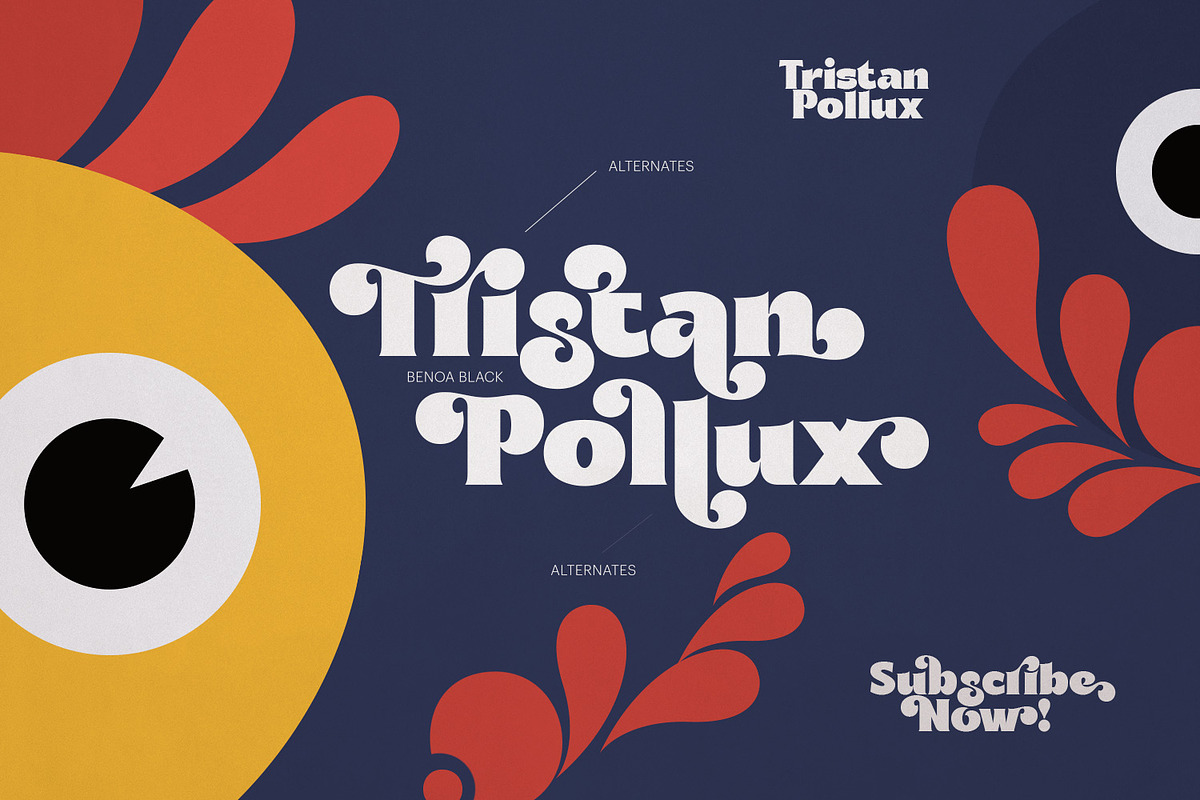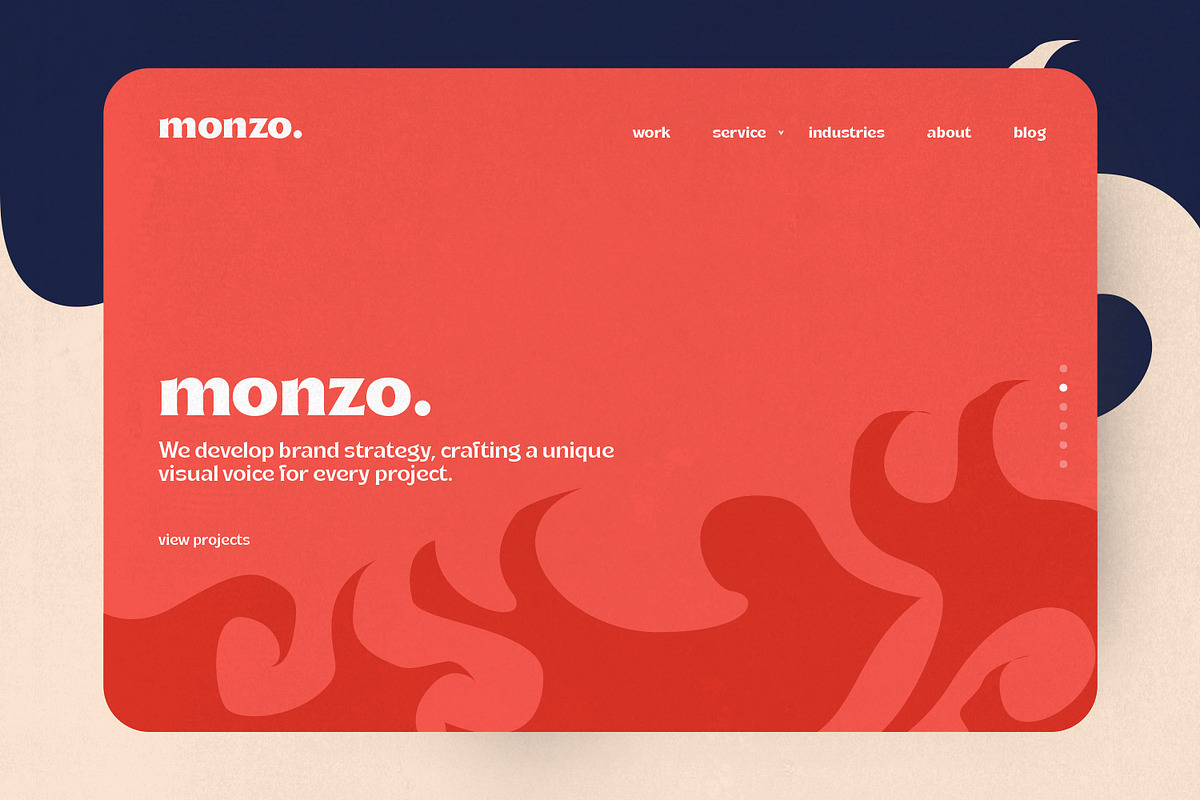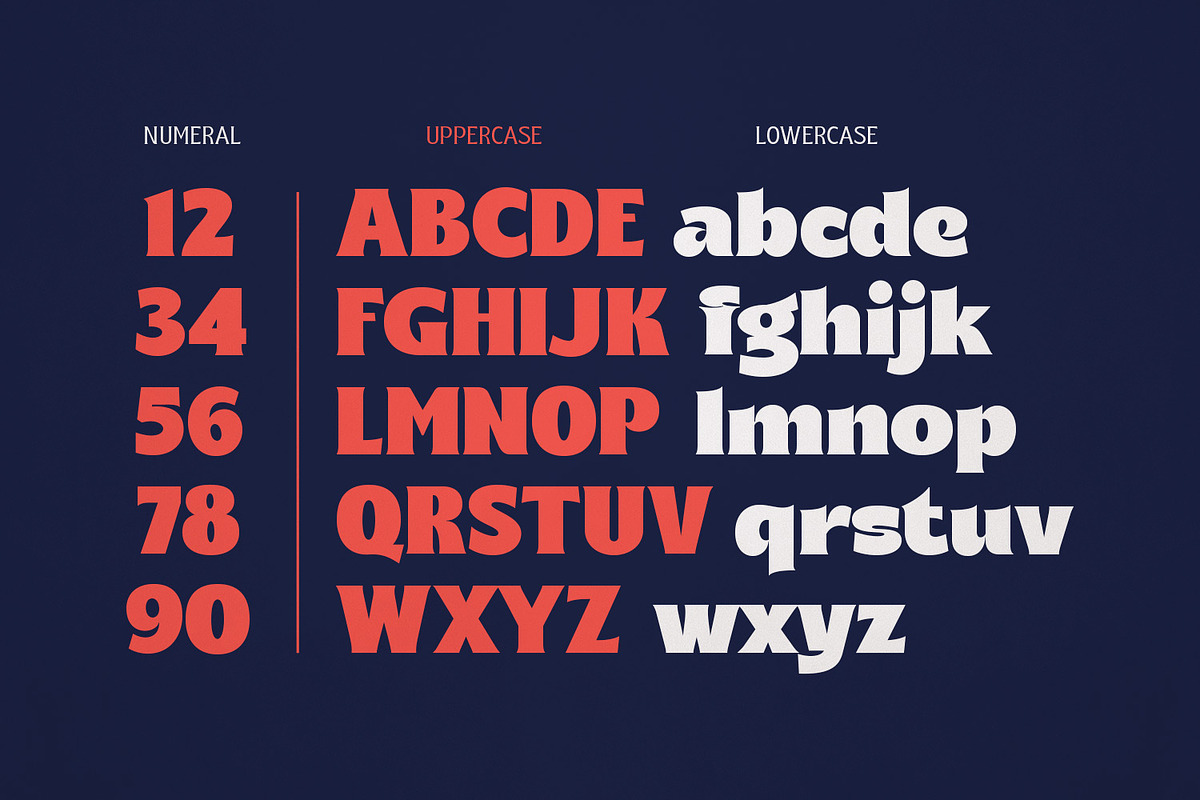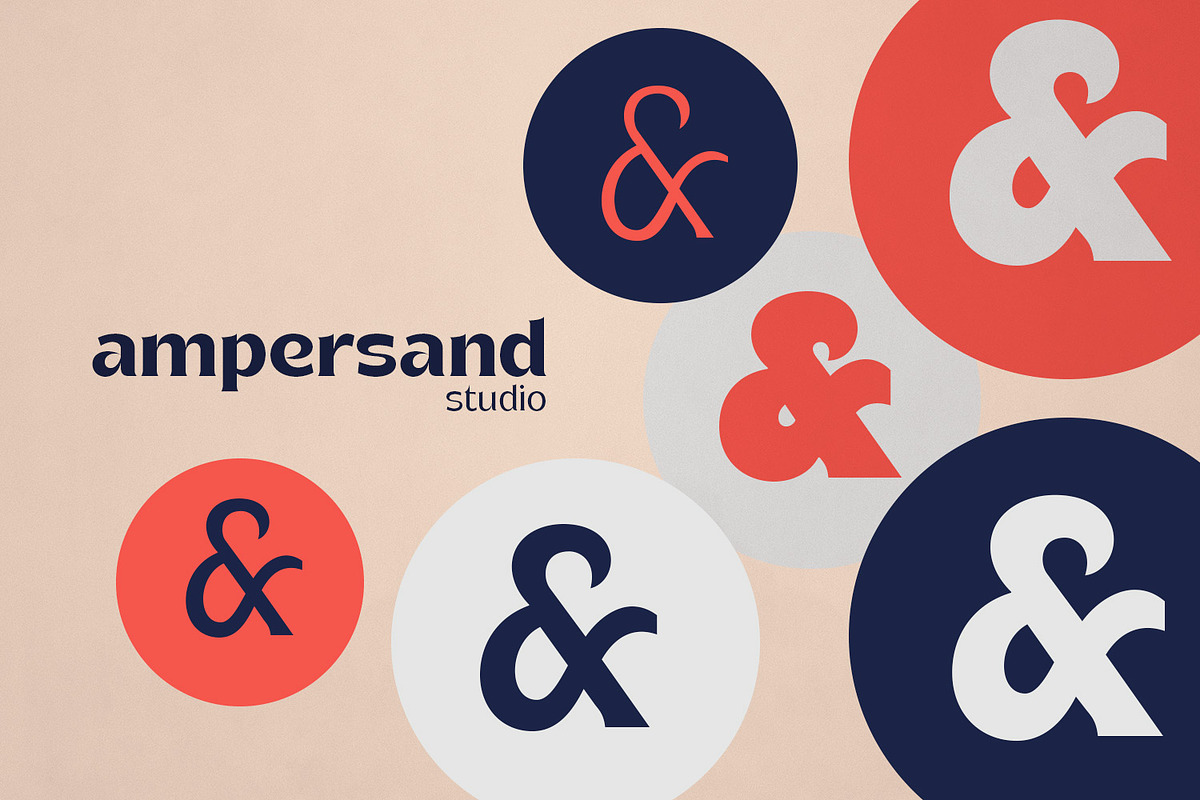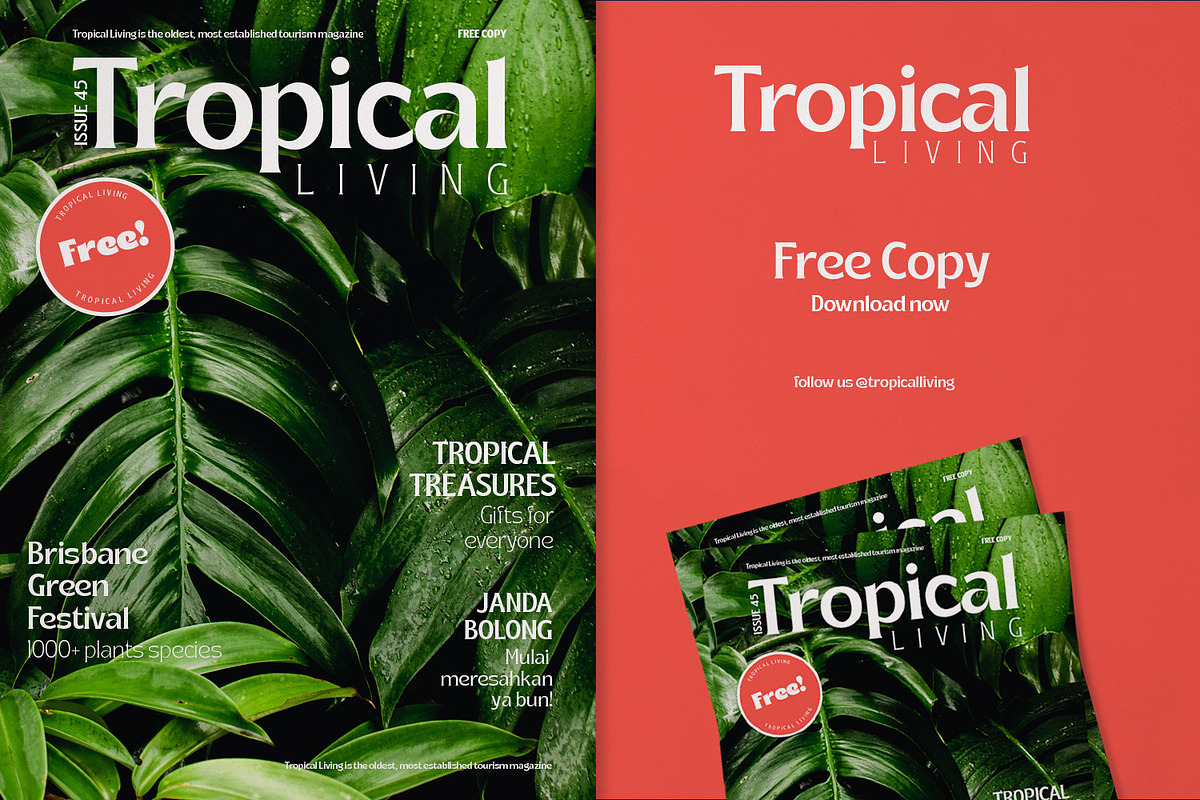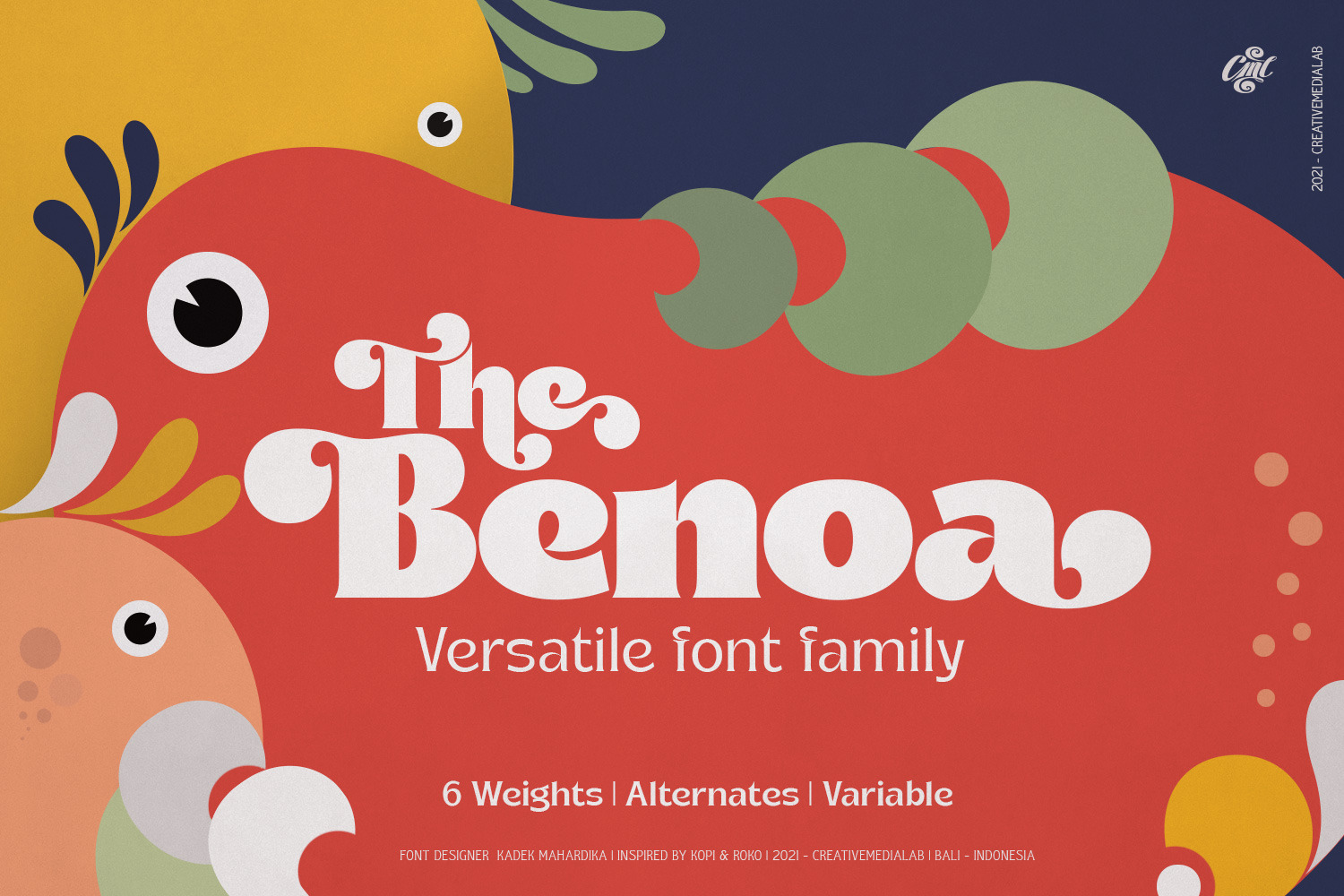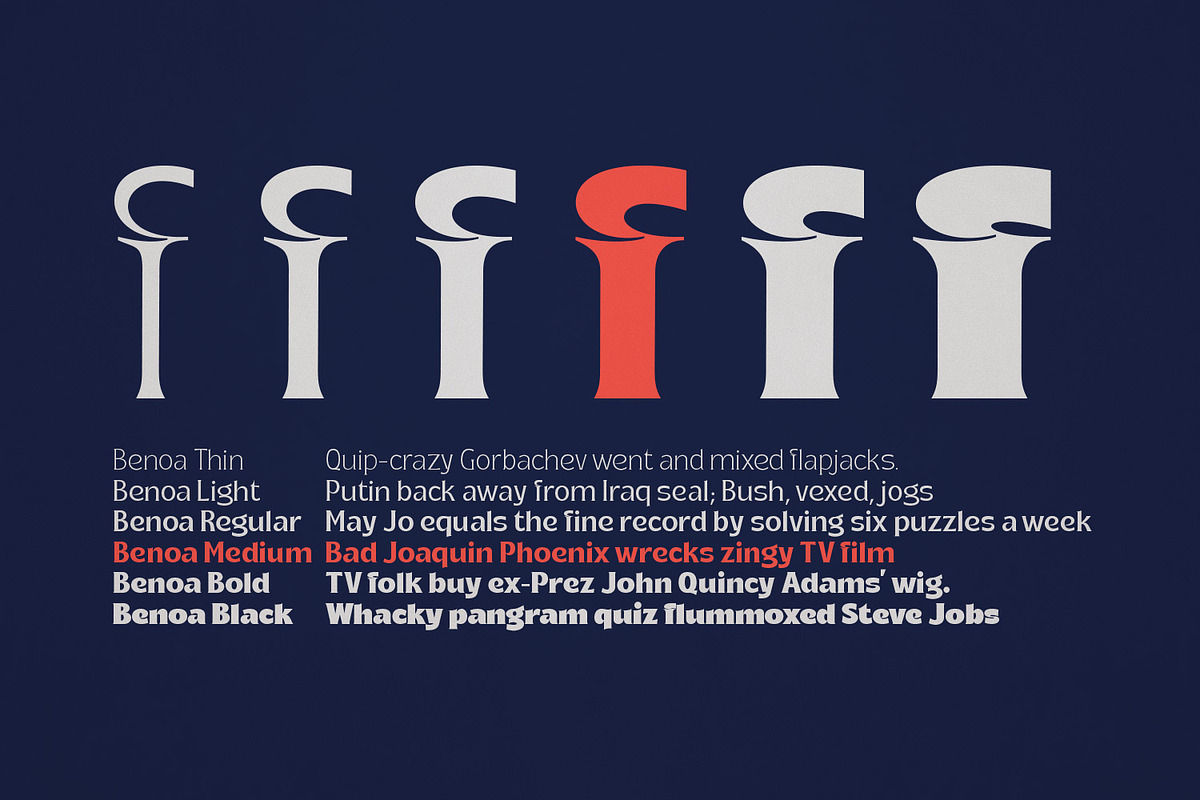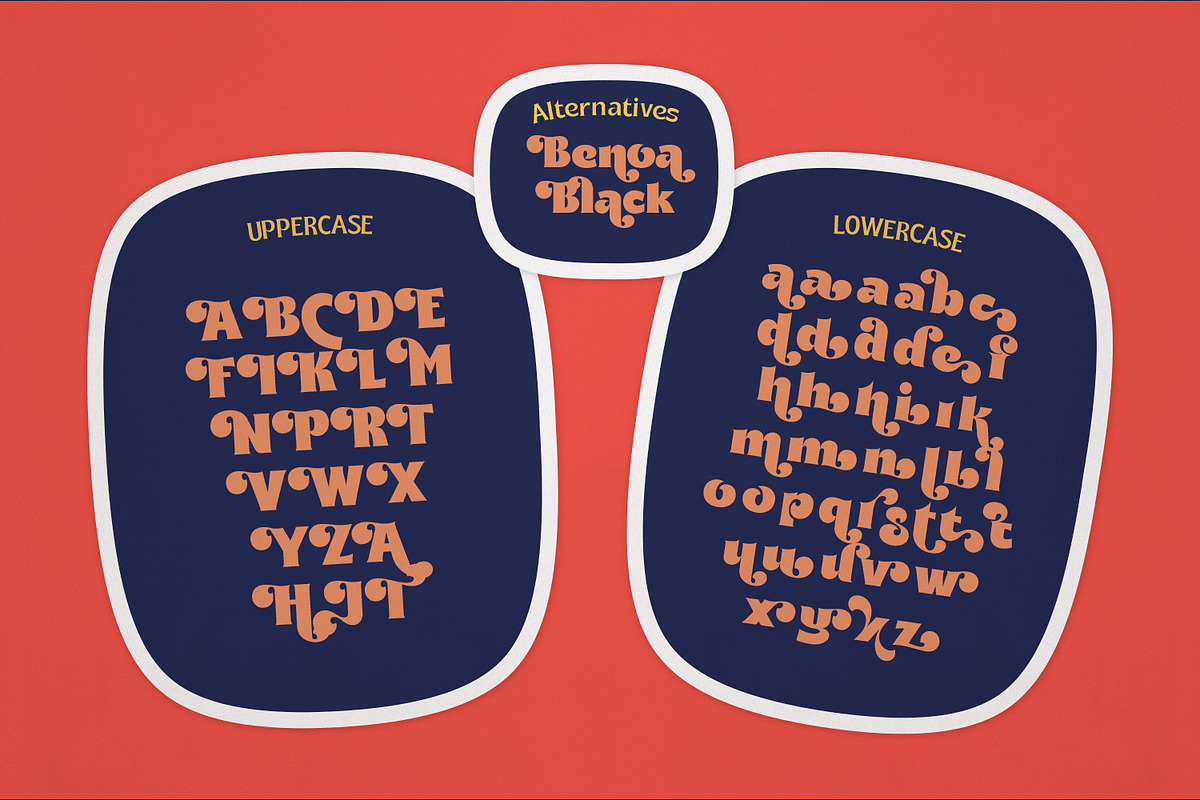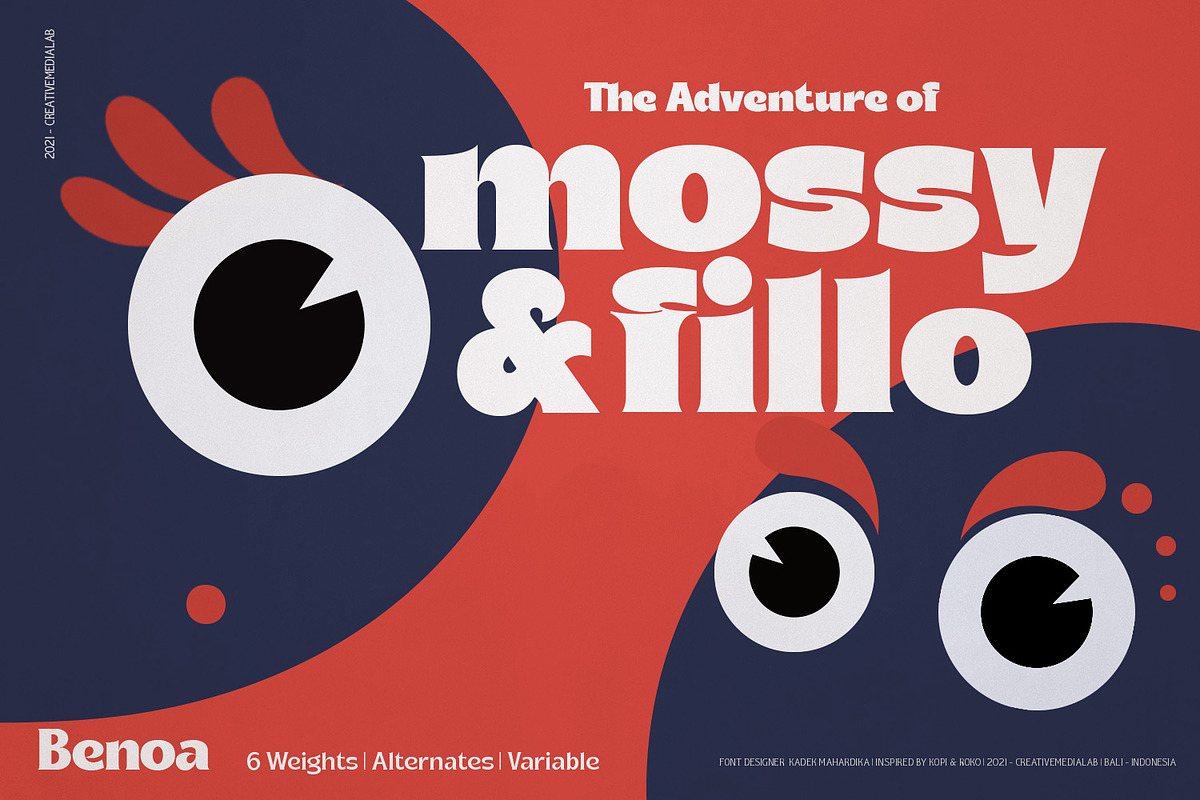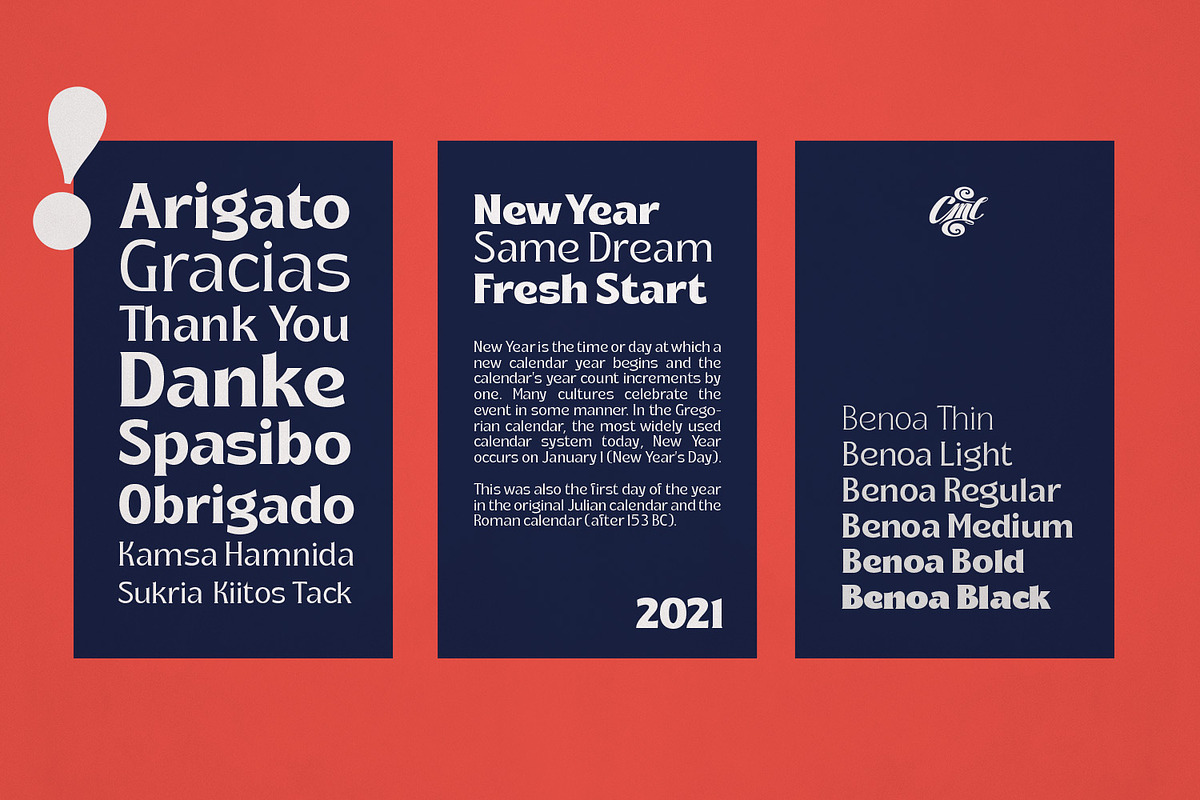
Benoa Font
Benoa is a versatile font family for your design, consist of 6 weights from thin to black with dozens of alternates. Benoa works well with any style of design concept, from branding to a nice bold modern look!
Benoa also available in Variable format, multilingual support, numbers, and currency symbols, and dozens of alternates.
Supported Languages
Western Europe, Central/Eastern Europe, Baltic, Turkish, Romanian